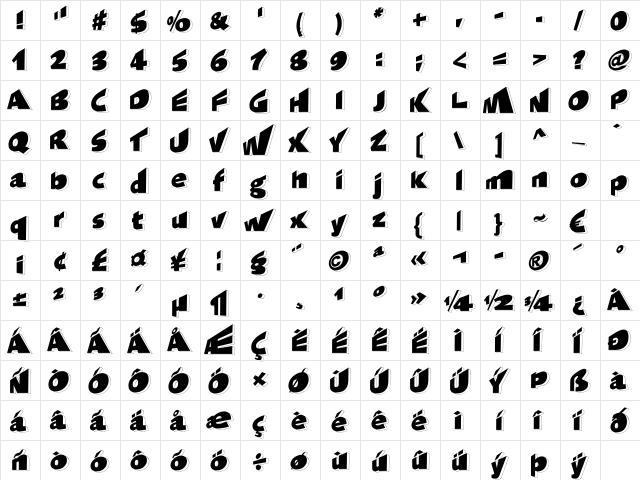
Sintex '3D' UltraBlack Regular
Design Context for Sintex '3D' UltraBlack Typeface
Sintex '3D' UltraBlack is a composed and adaptable typeface that performs quietly and consistently across a wide range of design contexts.